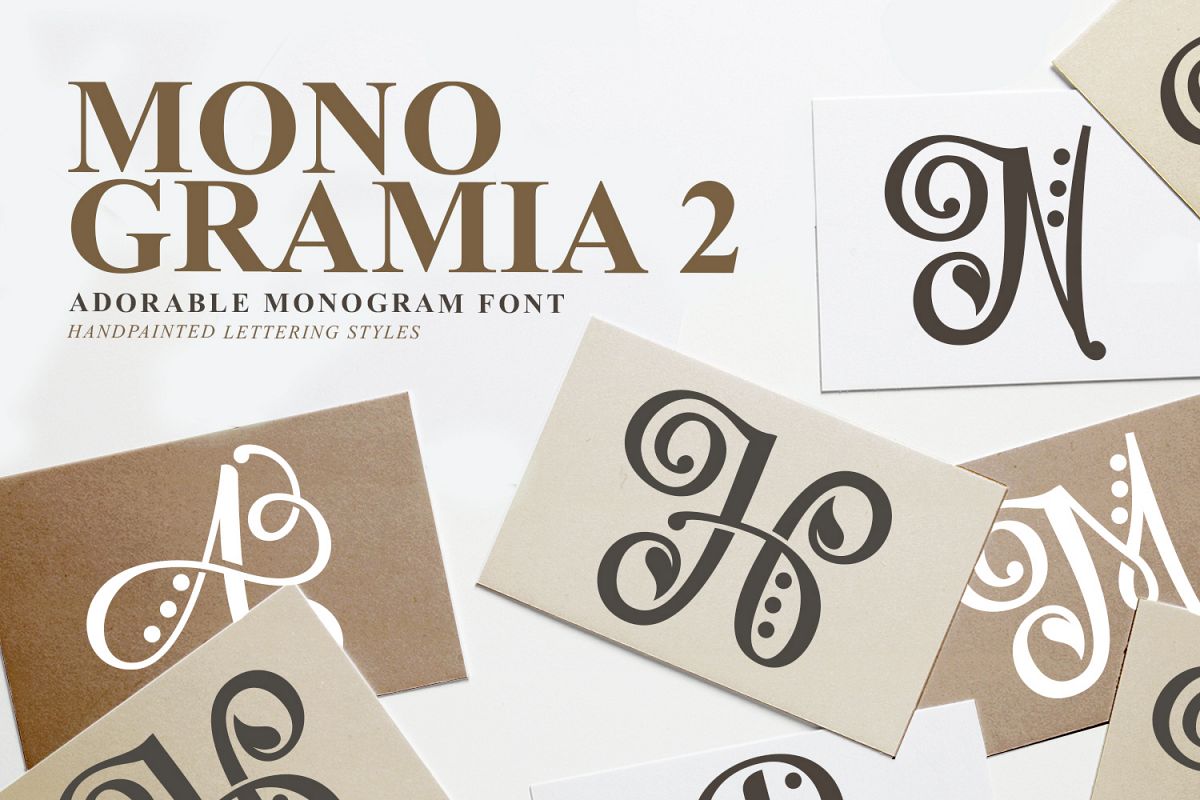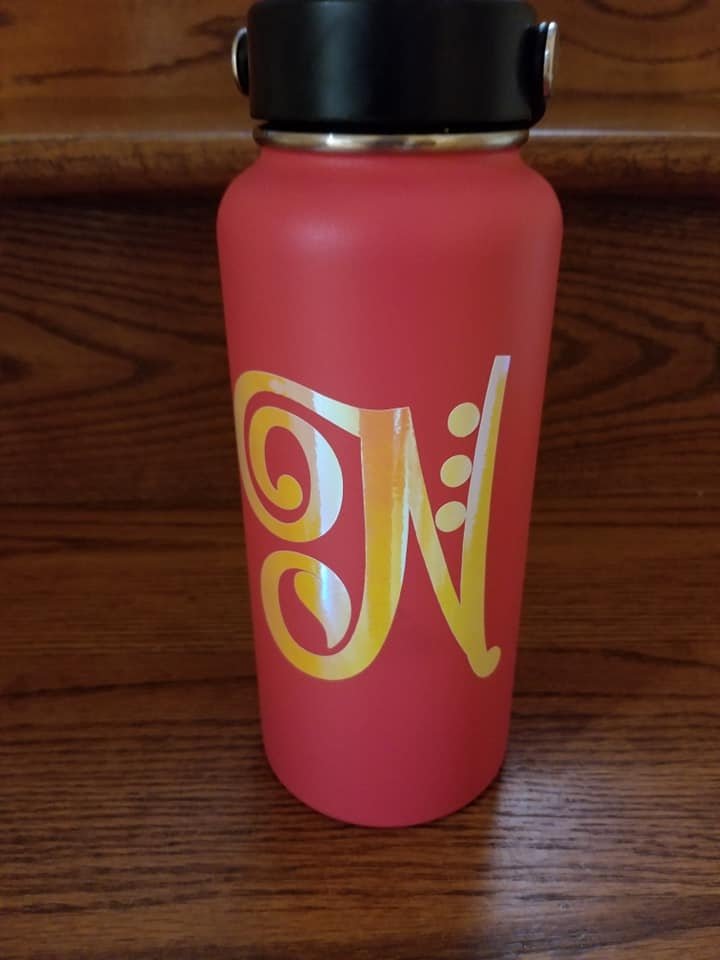
Monogramia 2 is the 2nd version of the popular Monogramia https://fontbundles.net/font-bundles-store/76218-monogramia. This version has less hearts, more variety and you can use the letters to create your own monograms, or simply use them as part of your projects to make them stand out from the crowd!